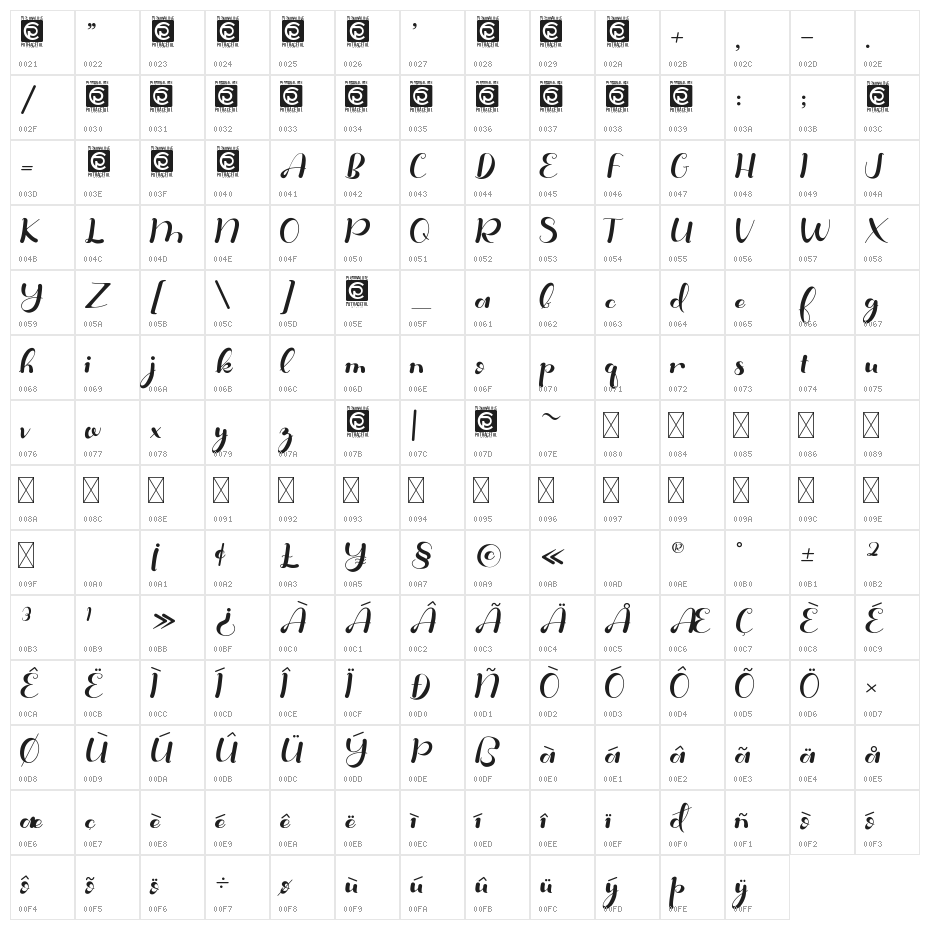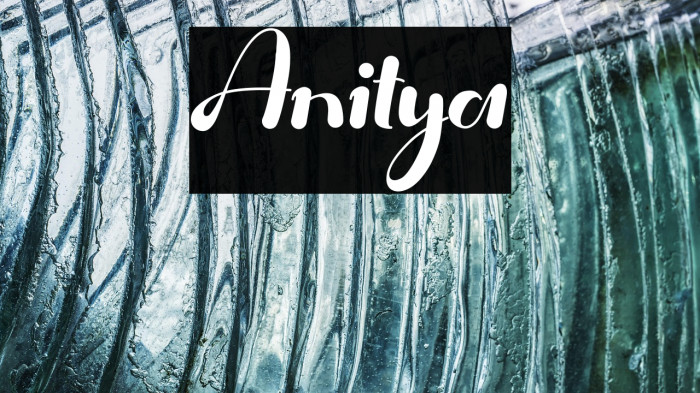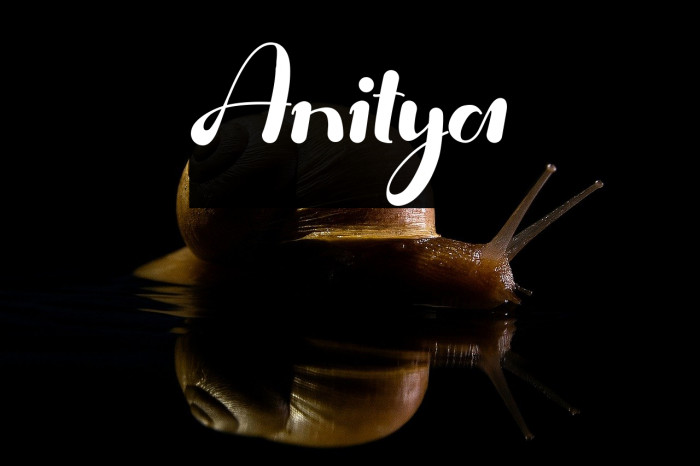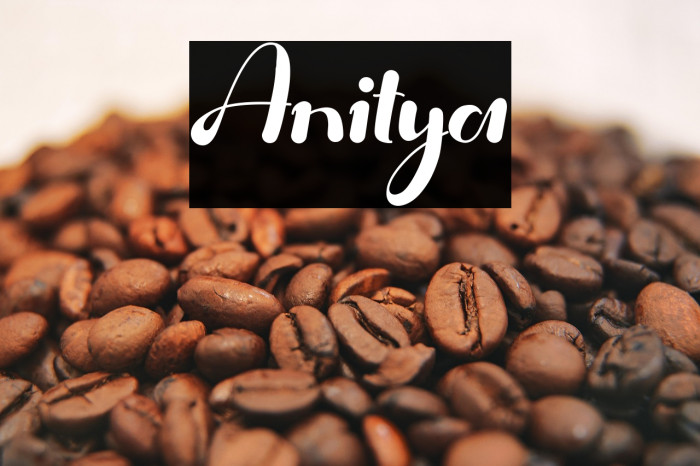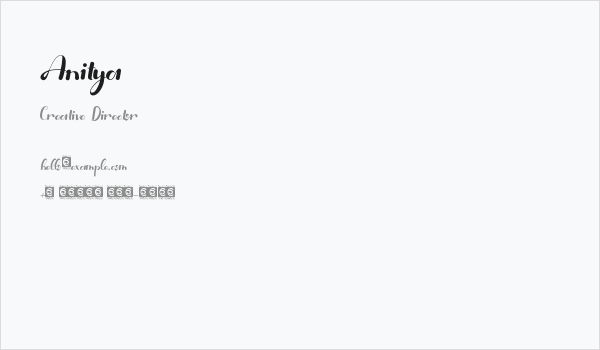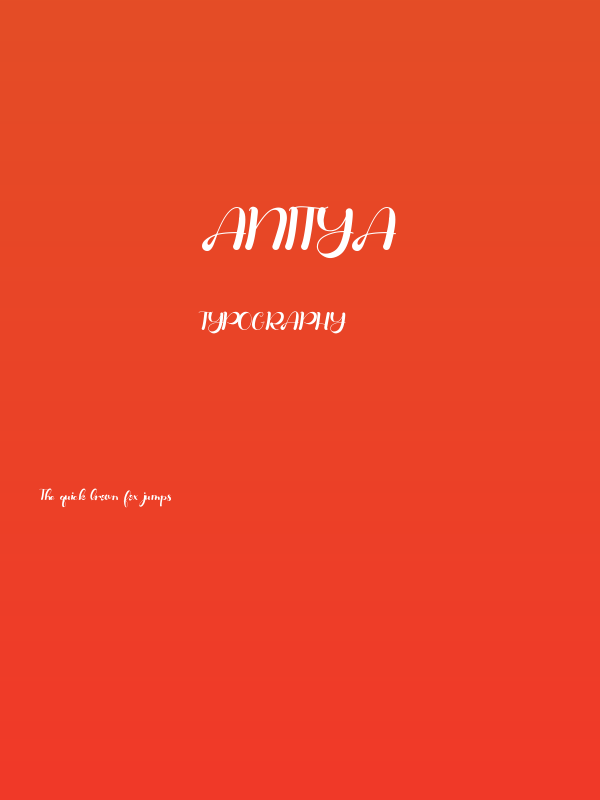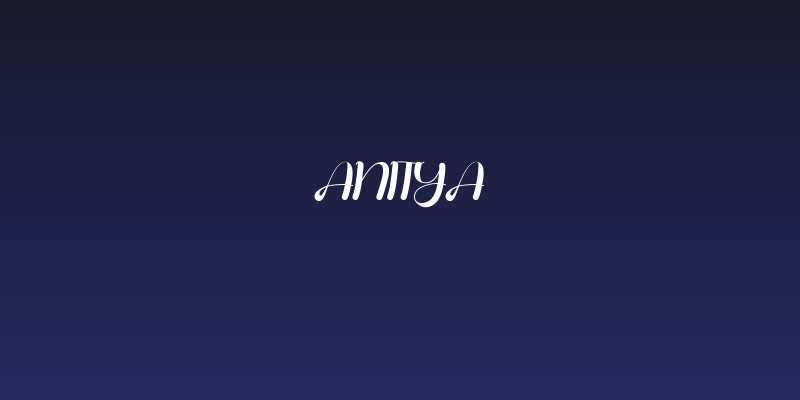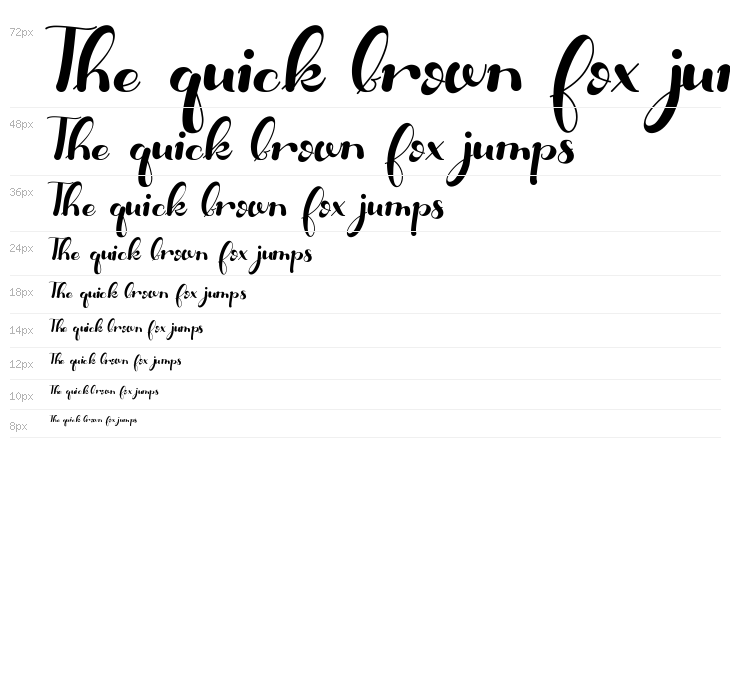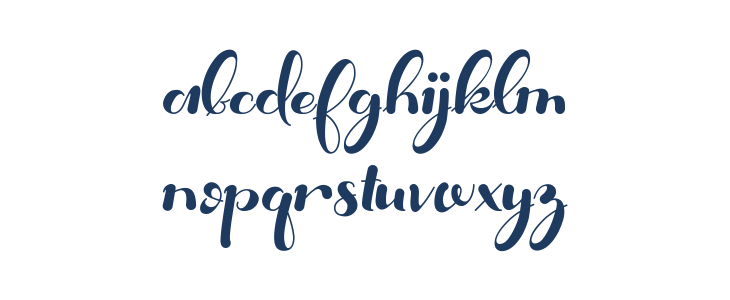
Anitya Font
Anitya Description
This font features a flowing, cursive style with elegant, sweeping lines that give it a sophisticated and artistic appearance. The uppercase letters are bold and expressive, with unique flourishes that add a touch of flair. The lowercase letters maintain a consistent style, with smooth connections between characters, creating a seamless and harmonious look. The numbers and special characters are designed to match the overall aesthetic, ensuring a cohesive appearance across all text. This font is ideal for projects that require a personal, handwritten touch, such as invitations, greeting cards, and branding materials.